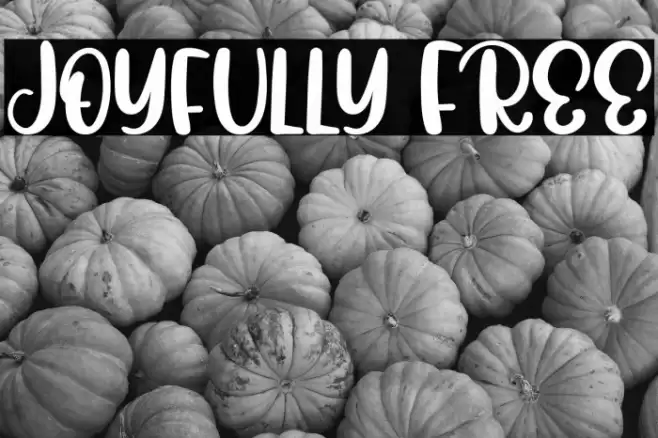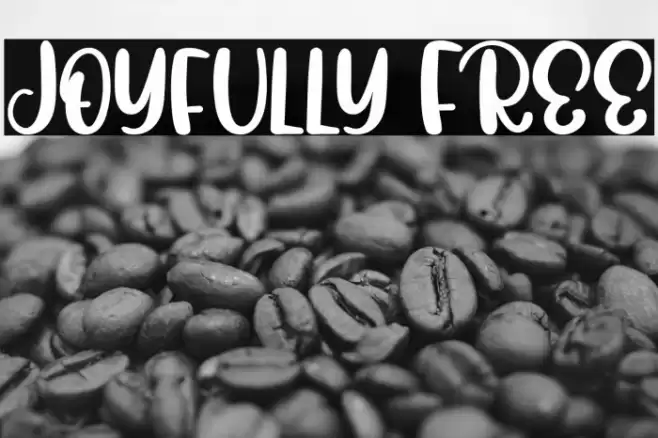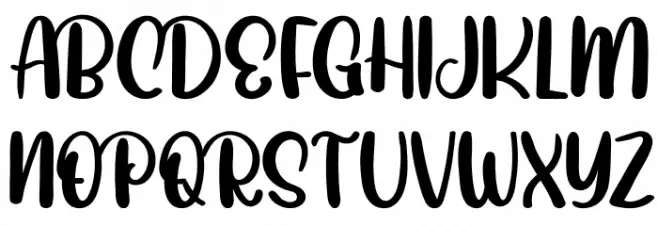
Joyfully FREE Font
Joyfully FREE Description
This font features a playful and bold script style with a handwritten feel. The characters are rounded and connected, giving it a fluid and dynamic appearance. The strokes are thick and consistent, creating a strong visual impact. The uppercase letters maintain a uniform height, while the lowercase letters have a slight slant, adding to the casual and friendly vibe. The font's overall design is lively and expressive, making it suitable for projects that require a touch of personality and warmth.
A bold, playful script font with a handwritten style from Regular fonts.
- Font: Joyfully FREE
- Proposed Projects: Ideal for greeting cards, invitations, playful branding, and social media graphics.
- Overall Style: Playful
- Use Case: Logos, Headlines, Invitations